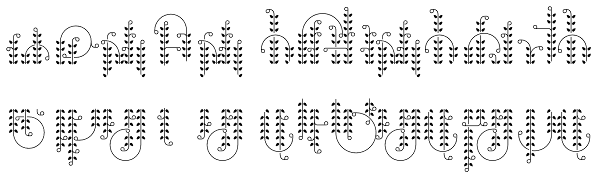
Braga
DSType proudly introduces BRAGA, an exuberant baroque typeface, named after a portuguese city, also known as the baroque capital of Portugal. Our latest typographic extravaganza comes with a multitude of fonts designed to work like layers, allowing...